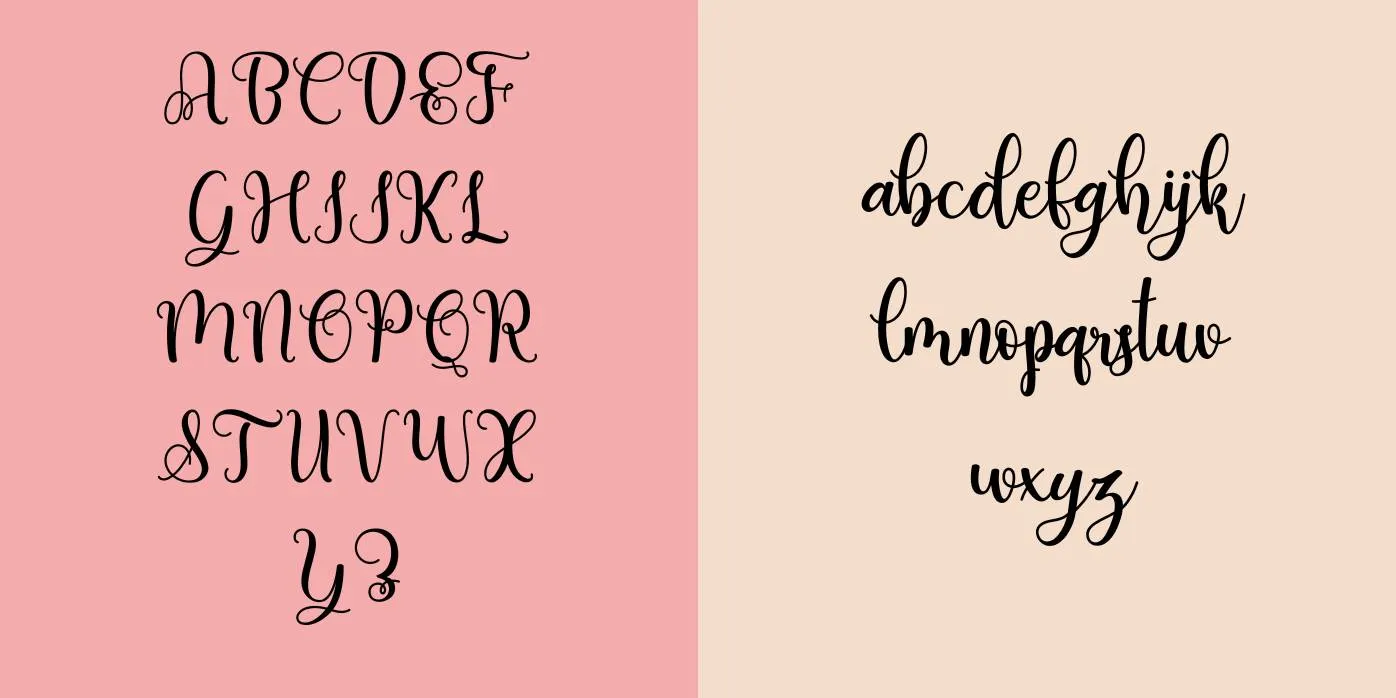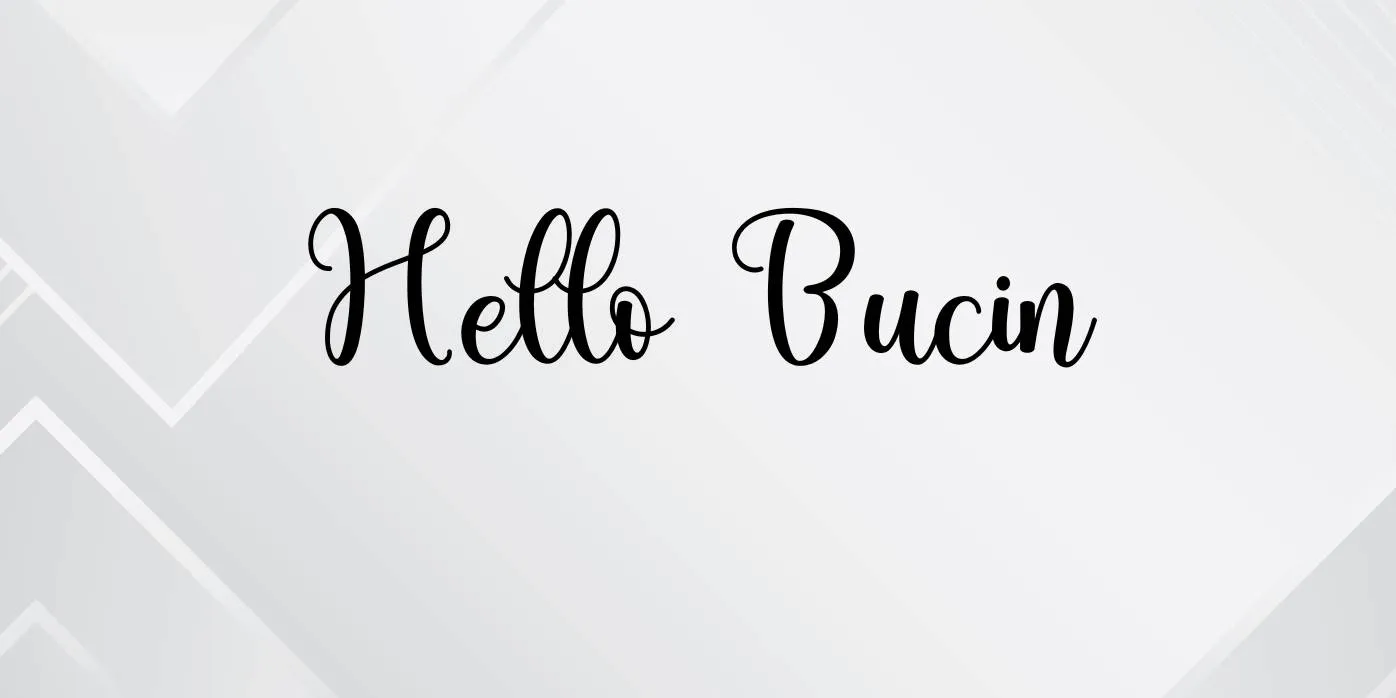
Hello Bucin Font
Hello Bucin Font is a very famous typeface that belongs to the Calligraphy typeface. It was designed by Sealoung, a very well-known designer, who was known for his creativity and unique designs and his fonts are in high demand in the font industry. This is a romantic style typeface with joining letters structure and thin curly strokes, which give a very lovely and sweet look to your design. It has around 338 glyphs and characters in its single regular weight that you can easily utilize in your designs.